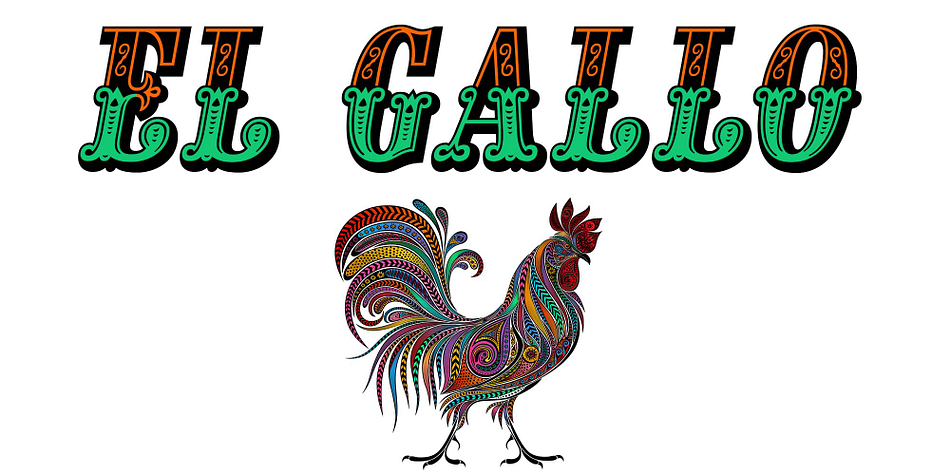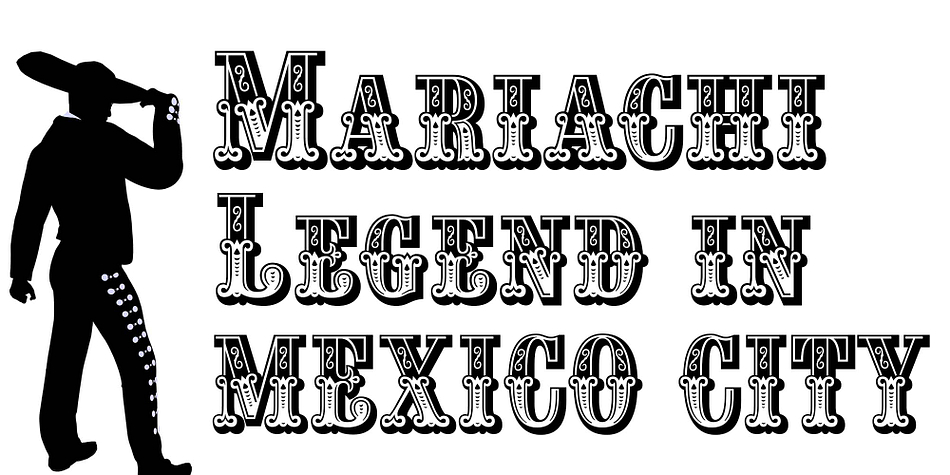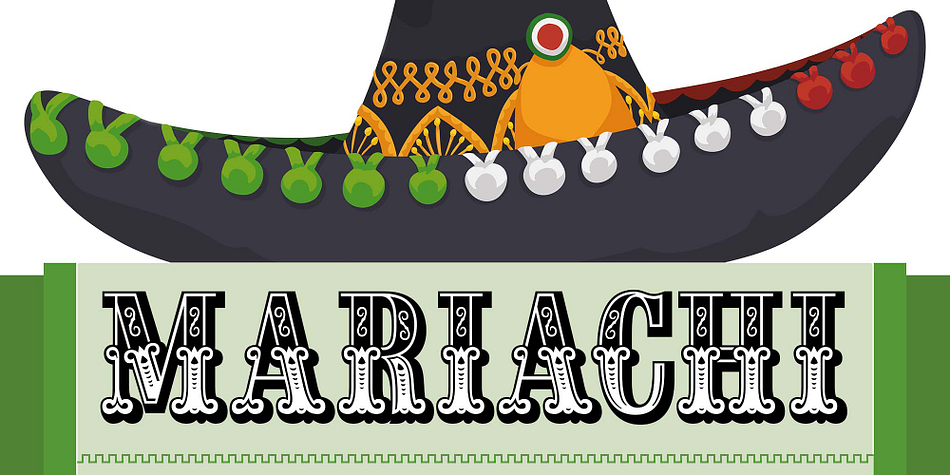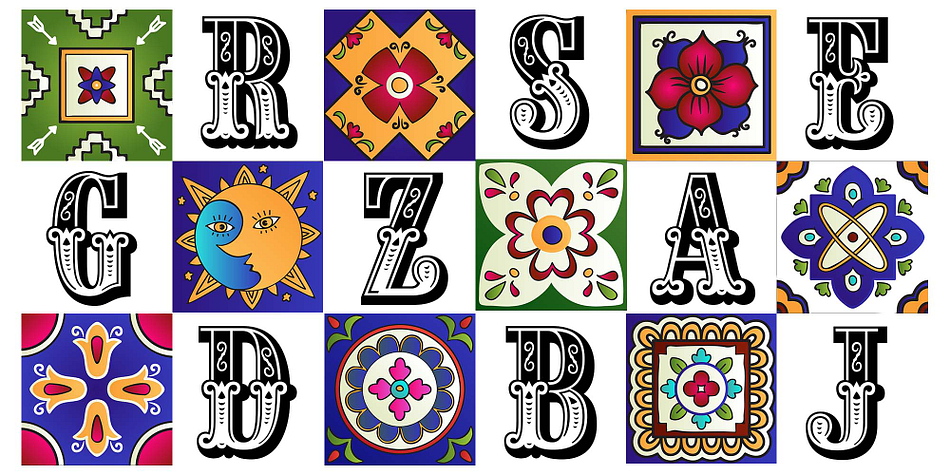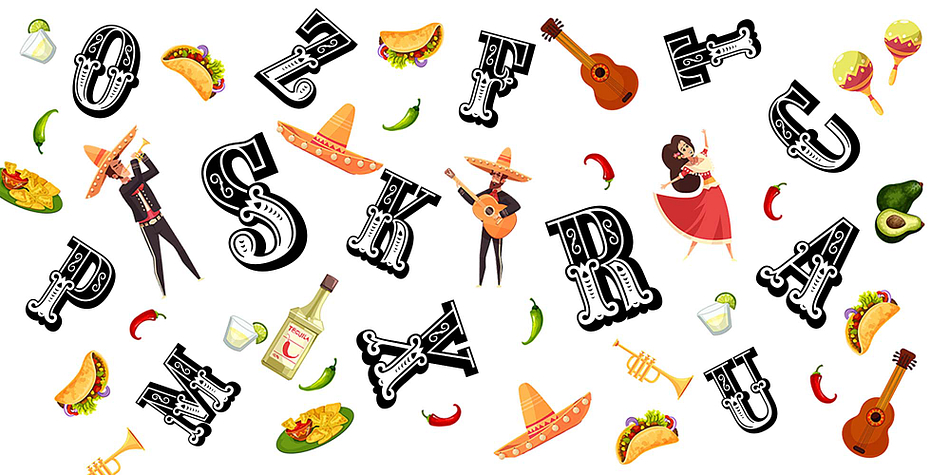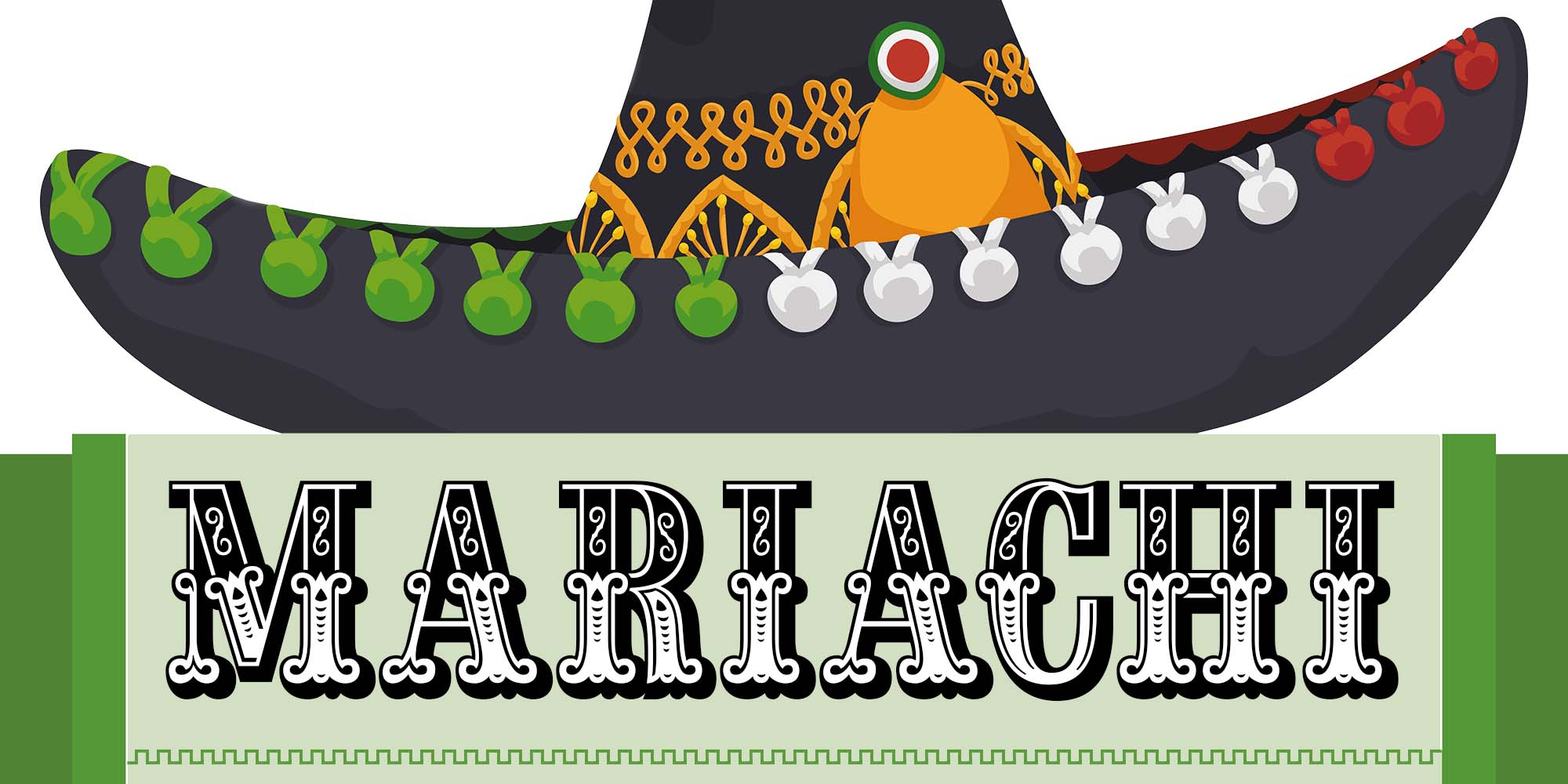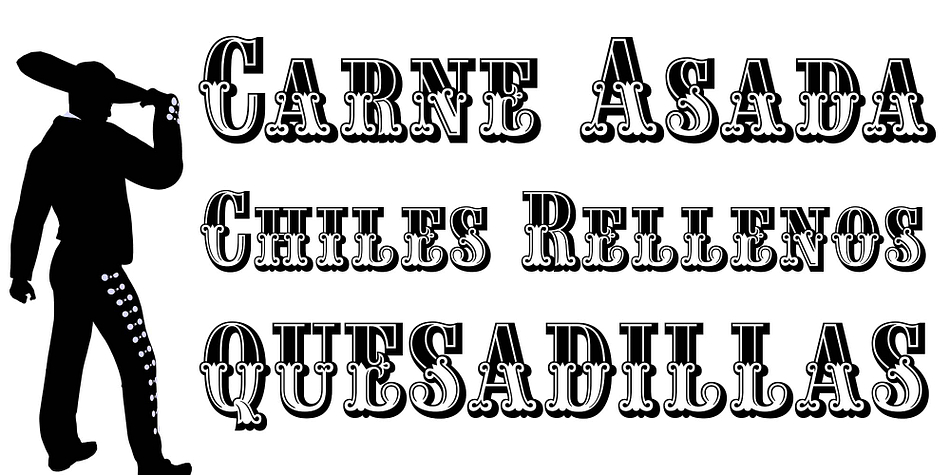
Mariachi
Designed by Michael Hagemann, Mariachi is a western and wood type font family. This typeface has twenty-four styles and was published by FontMesa.
Mariachi is a new condensed version of our Maison Luxe font which is a revival of an old 1800’s classic ornate French font.
This new 2021 condensed version takes this old classic to an all new level by adding small caps, italics and a new black version.
Mariachi is perfect for headlines and logos from advertising to product labels, t-shirt lettering and restaurant menus.
Fill fonts are also part of this family, new to this font style is the half fill font for creating a two color effect on the letters, you’ll need an application that works in layers to use the fill fonts in Mariachi.
The regular fill font for Mariachi isn’t meant to be used as a stand alone font so we’ve created a solid black version with thicker serifs on top and adjusted outlines throughout for a better appearance as a solo font.